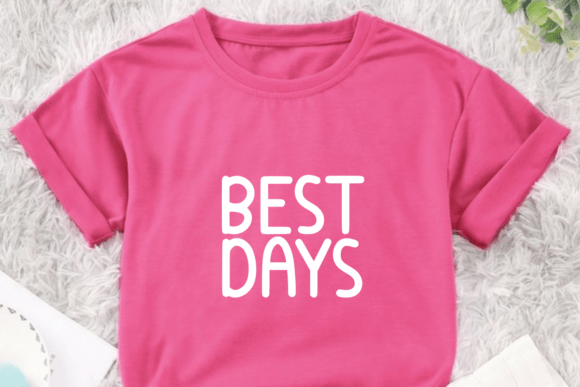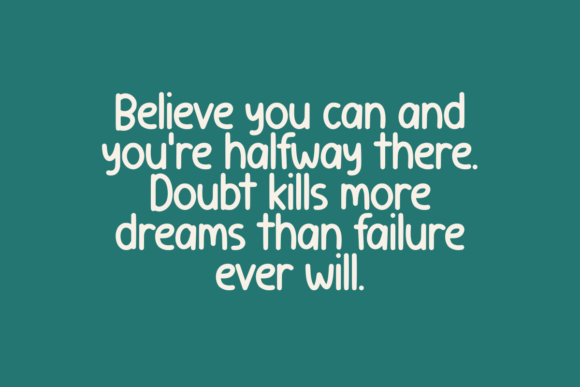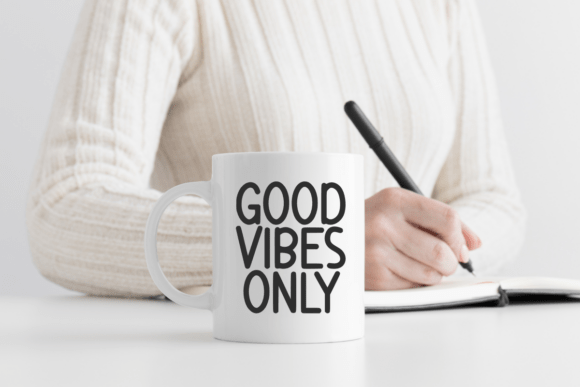
Introduction to Personal Space Font
Have you ever found yourself lost in a world of creativity, surrounded by colorful pens, paper scraps, and design ideas swirling in your head? For many of us, this moment is a defining characteristic of our love for design. As a creative enthusiast, I’m sure you’ve stumbled upon the perfect font to bring your project to life, and today, I’m excited to share with you a game-changing design resource – the Personal Space Font.
This charming sans serif handwriting font is designed to evoke a sense of warmth and friendliness, making it perfect for a wide range of creative projects, from kids’ worksheets to scrapbooks and DIY designs. With its high-quality design and transparent background, the Personal Space Font is a must-have for any designer looking to add a personal touch to their work.
Key Features of Personal Space Font
- High-quality design resource with a unique, cosmic aesthetic.
- Comes with a transparent background, allowing for seamless integration into various creative projects.
- Features a clean and minimalist design, perfect for use in logos, branding materials, and digital art.
- Perfect for adding a touch of modernity and futurism to any creative project, from fashion and graphic design to architecture and product design.
Honest Review: Personal Space Font
I recently stumbled upon the Personal Space Font and I must say, it’s a great addition to any design resource collection. With its high quality and unique style, it’s perfect for creative projects that require a touch of sophistication.
- Unique and modern design that stands out from the crowd
One of the things I love about the Personal Space Font is its versatility. It can be used for a wide range of design projects, from logos to posters, and even digital interfaces.
- Some characters may appear too thin or fragile, especially at smaller font sizes
- Not suitable for body text, as it may be difficult to read in large quantities
Overall, I’m impressed with the Personal Space Font and would definitely recommend it to designers looking for a high-quality, unique font for their creative project. Just be mindful of its limitations and use it wisely.
Designing with Personal Space Font
The Personal Space Font is a unique and high-quality design resource that can elevate your creative project to the next level. This versatile font features a transparent background, making it easy to use in various design applications. To get started, download the font for free and explore its endless possibilities.
Getting the Most Out of Personal Space Font
To get the most out of the Personal Space Font, experiment with different font sizes, colors, and styles. Combine it with other design elements, such as images and graphics, to create visually appealing designs. Don’t be afraid to push the boundaries and try new things – the Personal Space Font is a versatile design resource that can help you achieve your creative vision.
Common Use Cases for Personal Space Font
The Personal Space Font is a versatile design resource that can be used in a variety of creative projects, including: logos, graphics, social media posts, presentations, documents, and more. Its unique and high-quality design makes it perfect for businesses, artists, and designers who want to create professional-looking designs that stand out from the crowd.